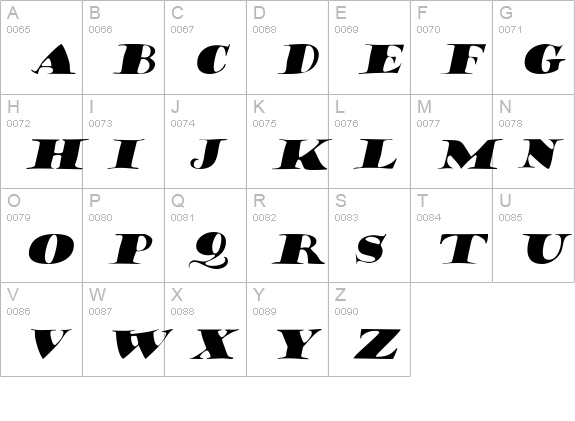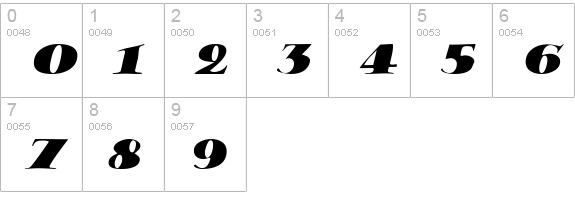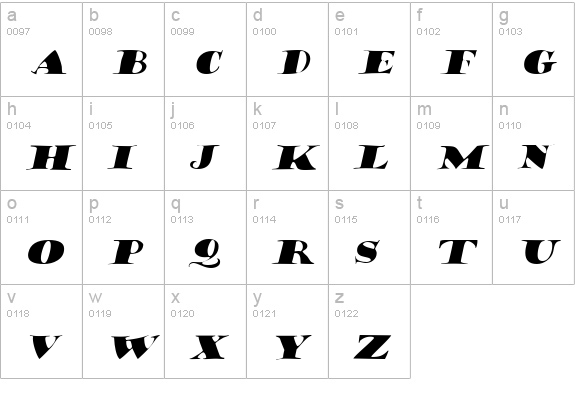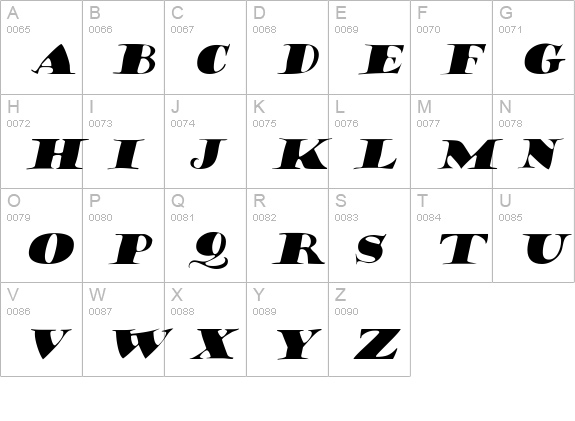
Hermann Italic Font Details
Hermann Italic is a distinctive, italic variant in the Hermann typeface family \xE2\x80\x94 well suited to design and typography projects.
Hermann Italic font exudes elegance and sophistication with its sleek and stylish design. The flowing curves and subtle serifs of this typeface lend a timeless charm to any project. Whether you're designing a wedding invitation, a menu for a high-end restaurant, or a luxury brand logo, Hermann Italic will add a touch of class and refinement. What sets Hermann Italic apart is not only its impeccable design but also the fact that it is available for free download at FontsMarket.com. This means that you can elevate your designs without breaking the bank, making it the perfect choice for both professional designers and hobbyists alike. Download Hermann Italic today from FontsMarket.com and discover the beauty and versatility of this exquisite font. Elevate your projects with the timeless charm of Hermann Italic and make a lasting impression with every design you create.